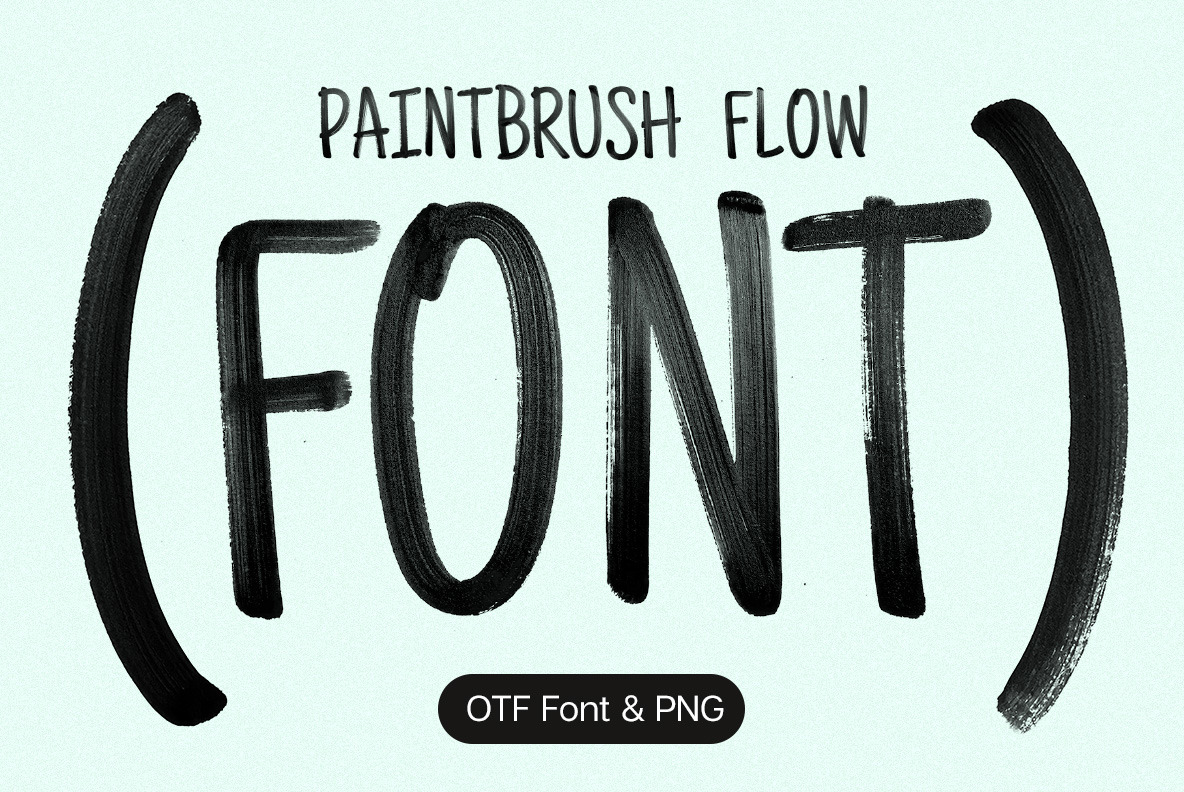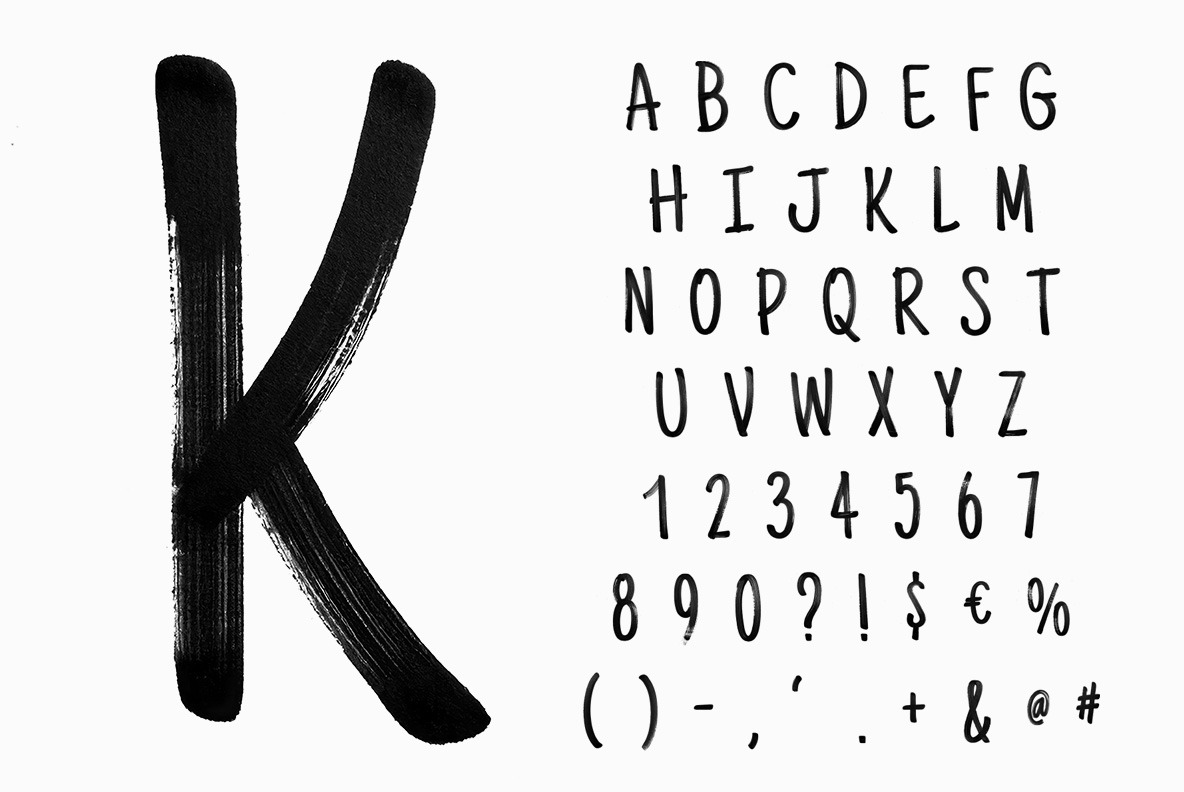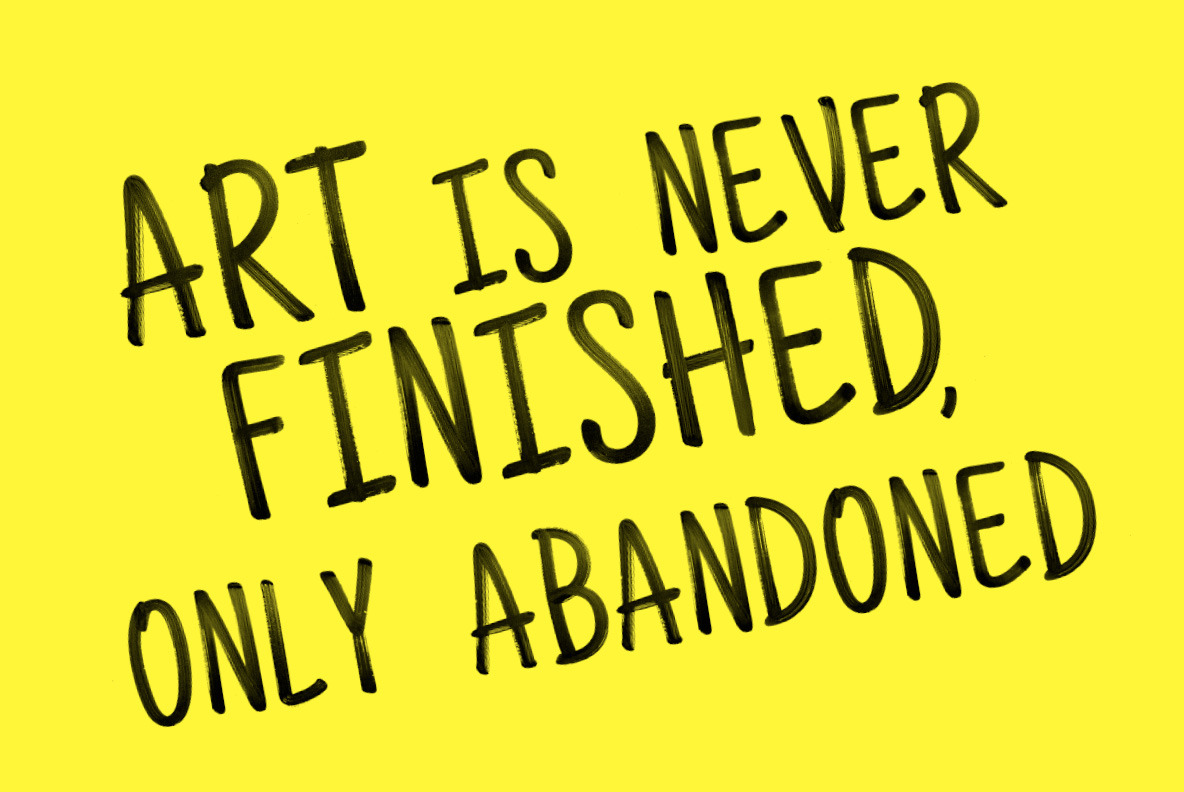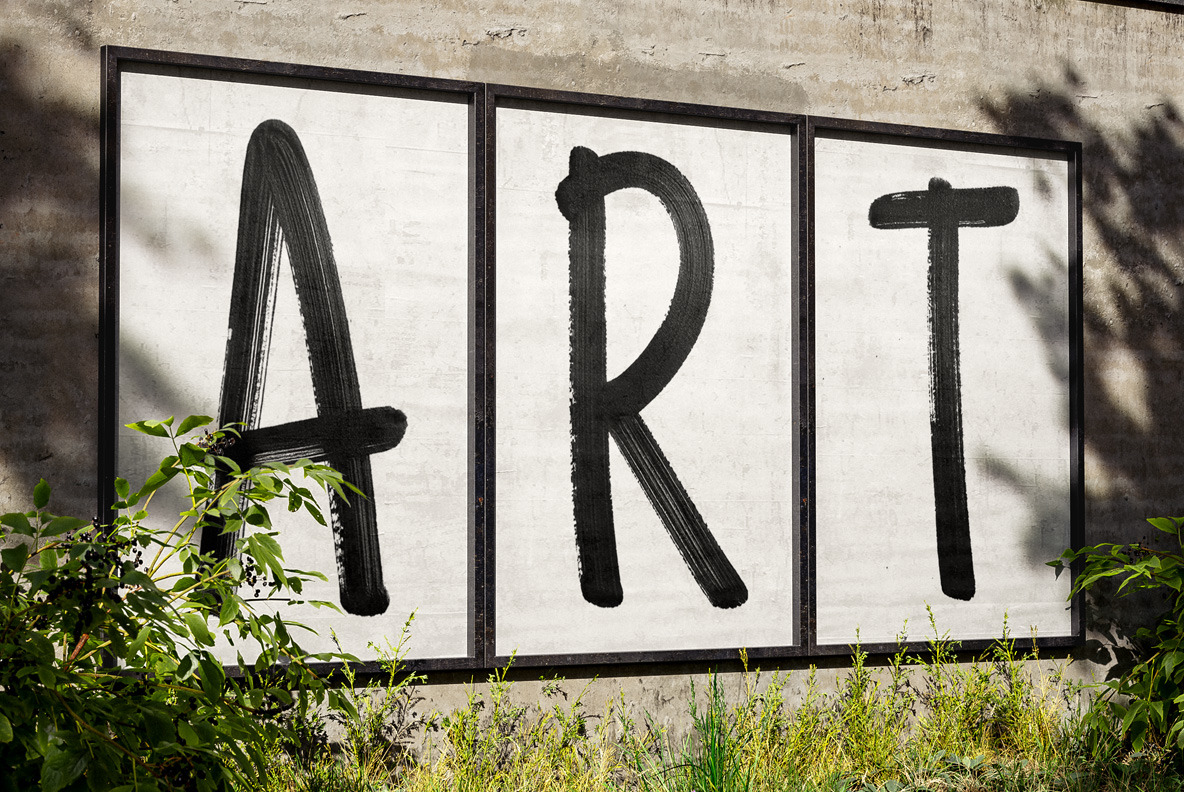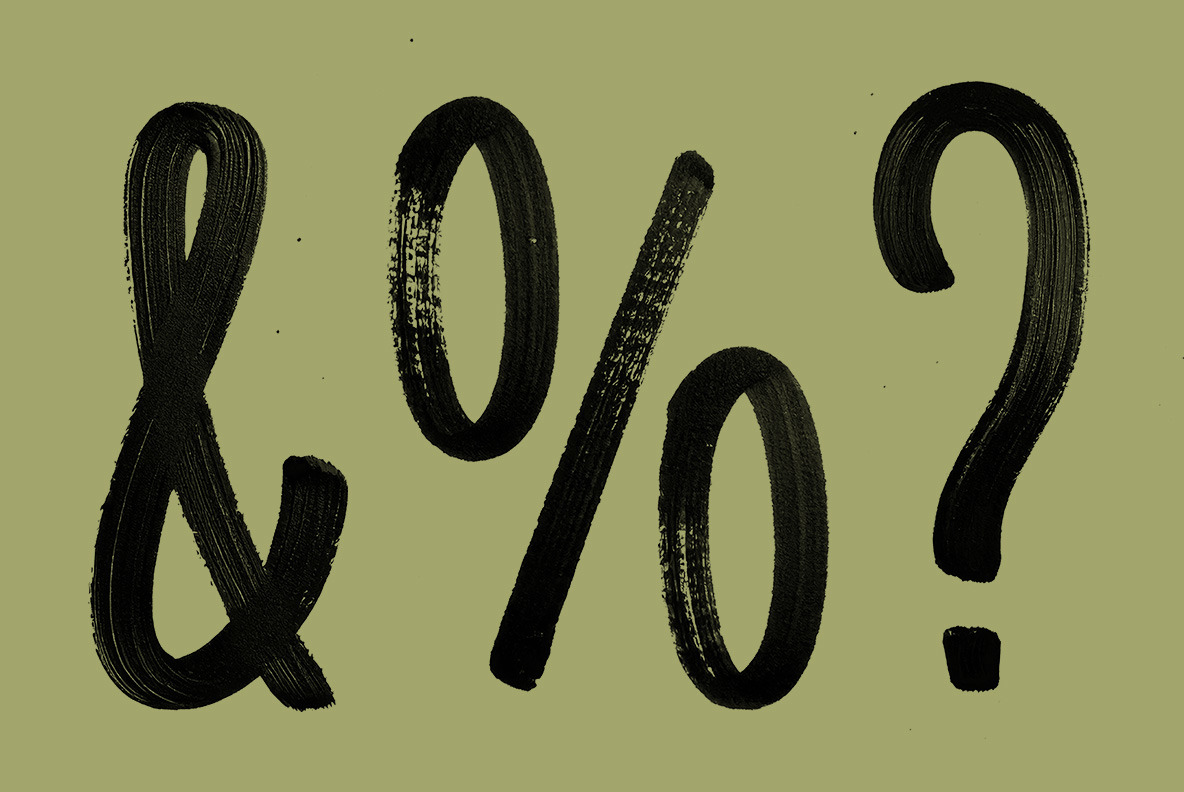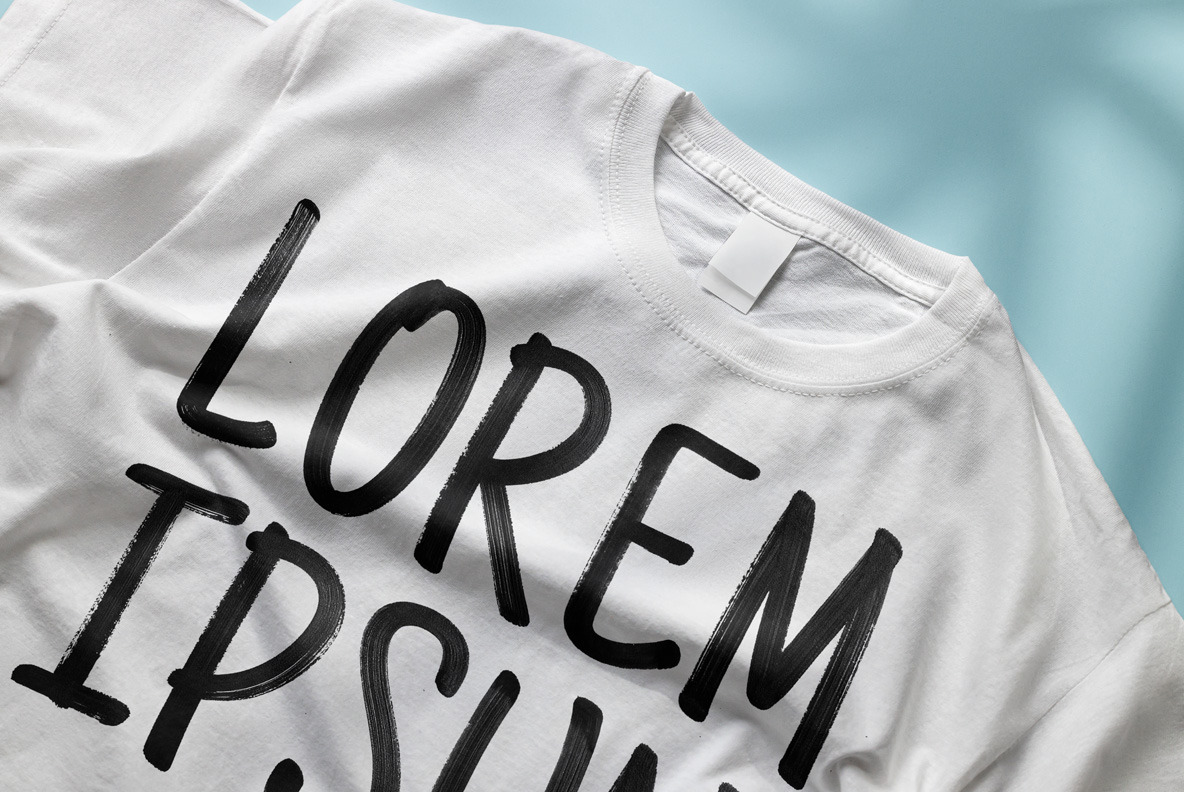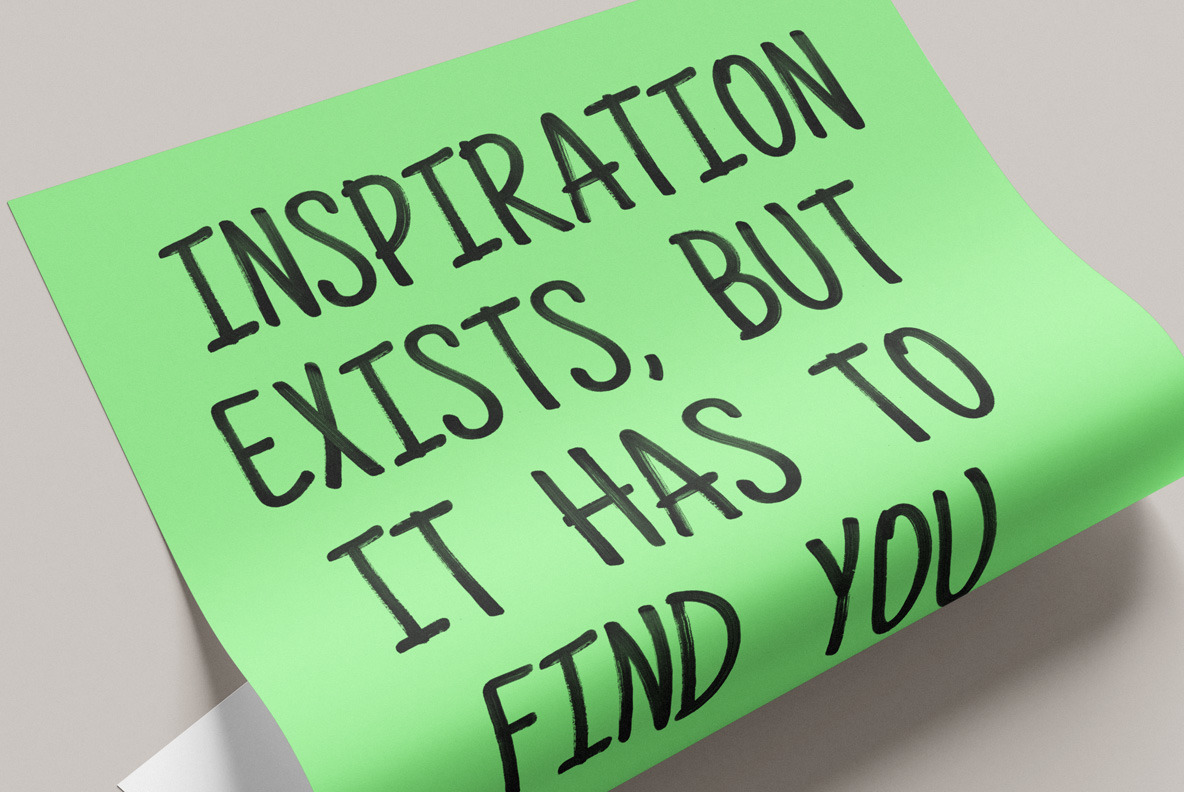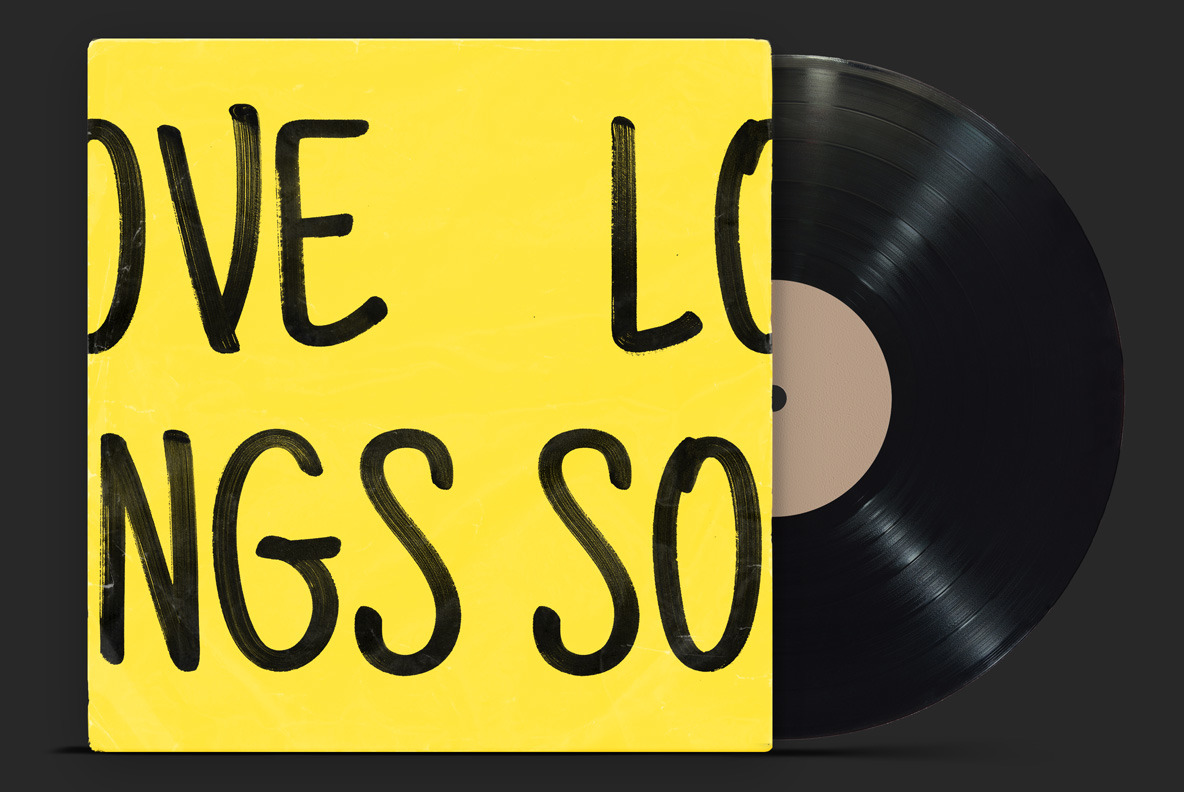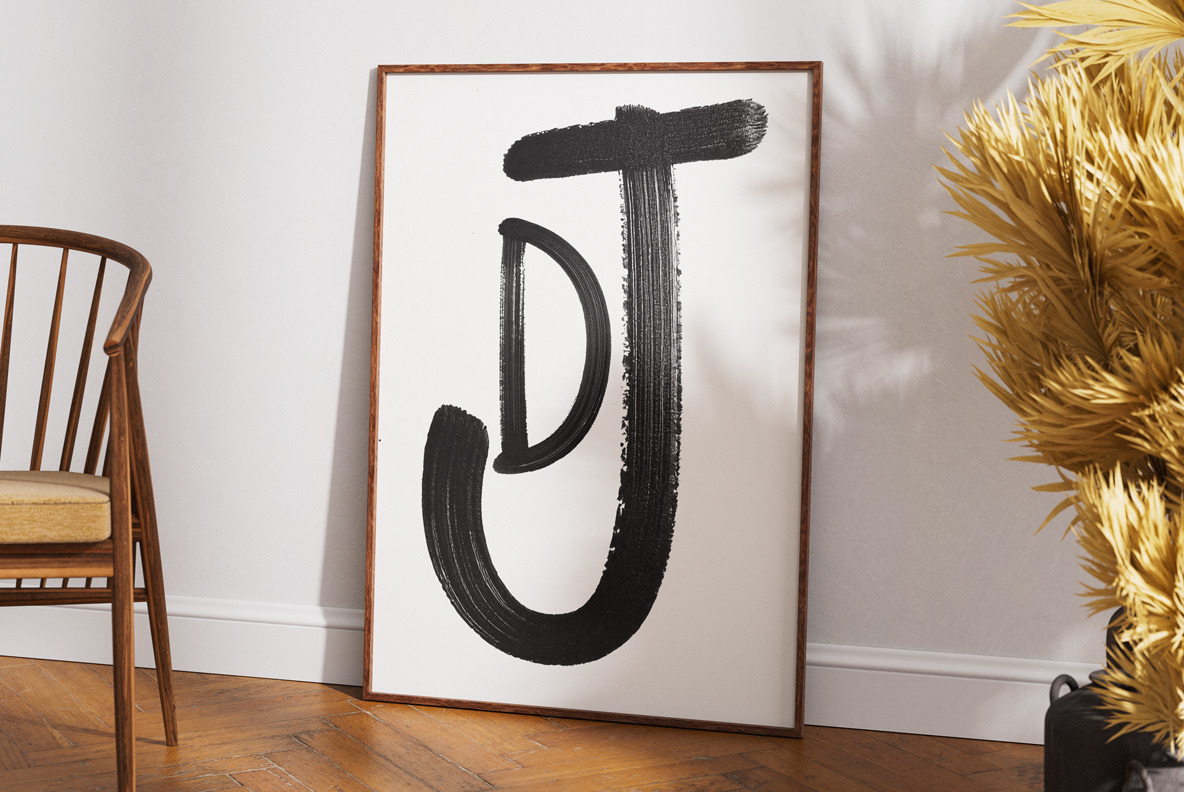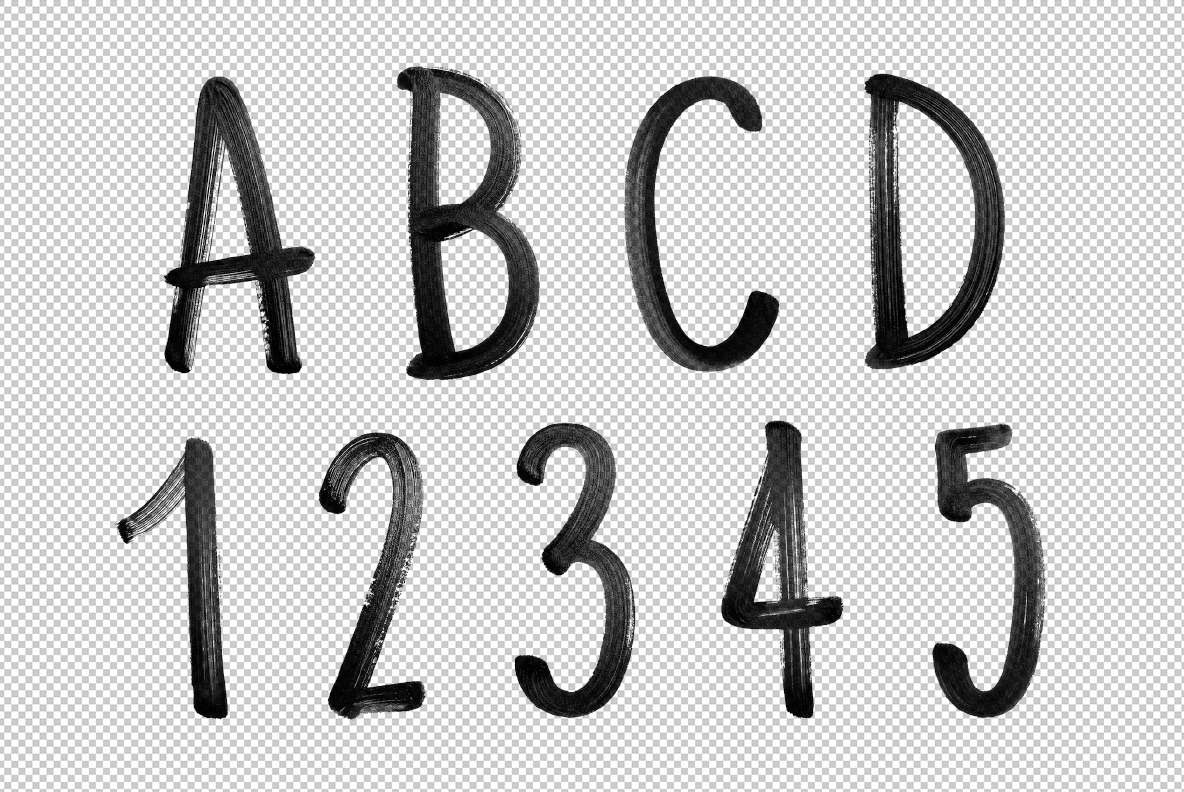
Paintbrush Flow Font
Paintbrush Flow Font is a dynamic, artistic typeface that mimics the fluid strokes of a paintbrush. Each letter is crafted with bold, expressive brushstrokes, giving your text a hand-painted, artistic feel. Perfect for projects needing an artistic touch, this stroke font adds character to posters, logos, invitations, and any creative design.
Others : ! ? - . ' $ € % @ &